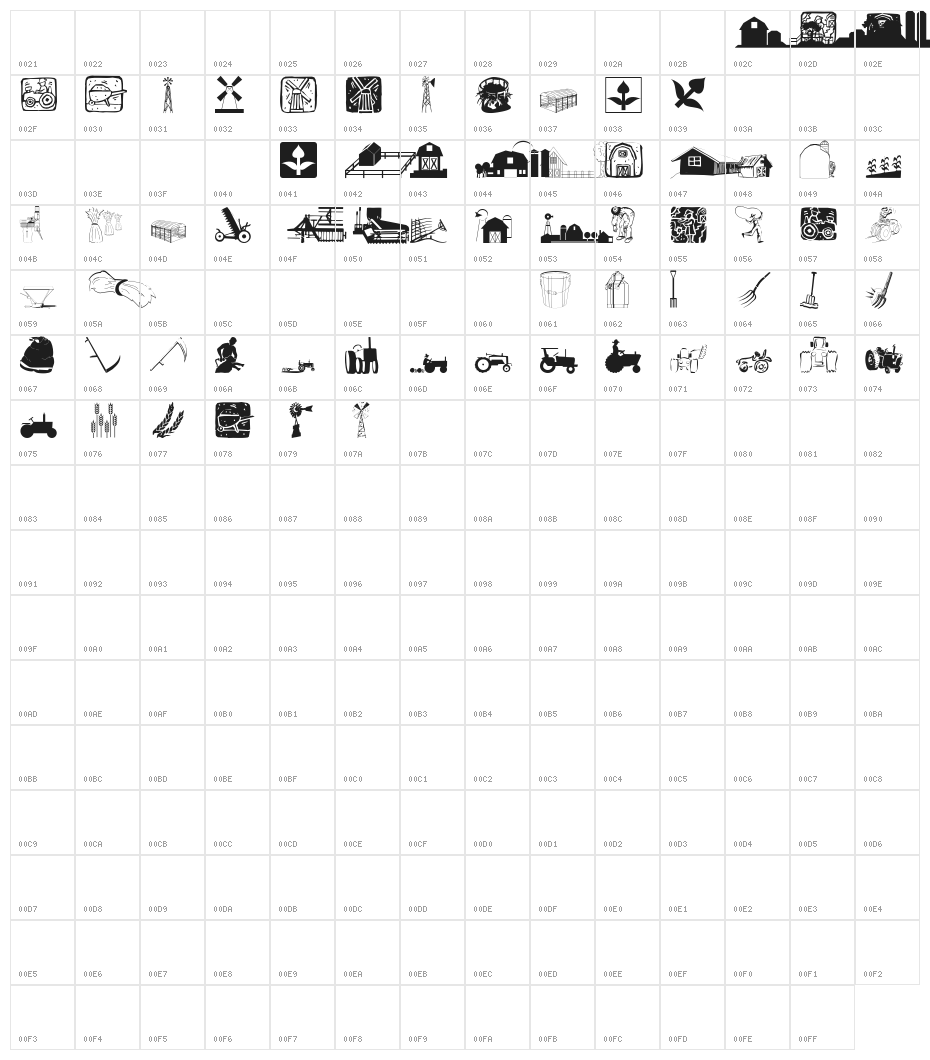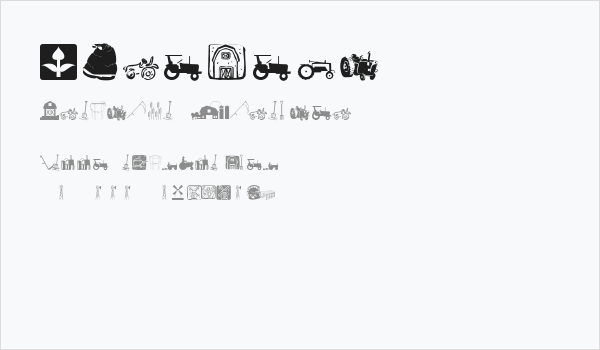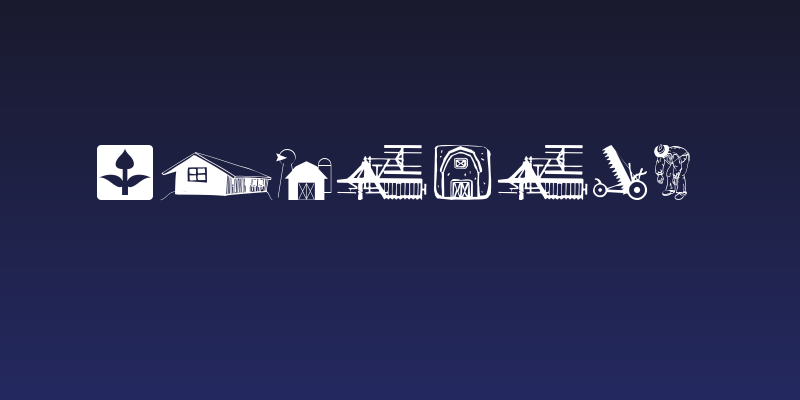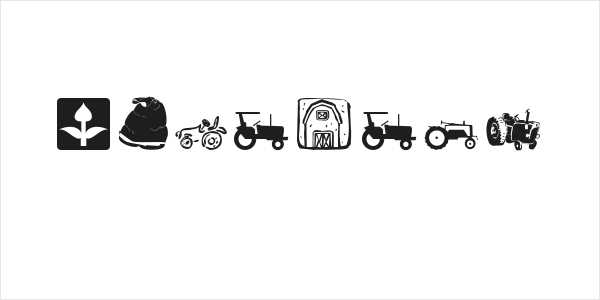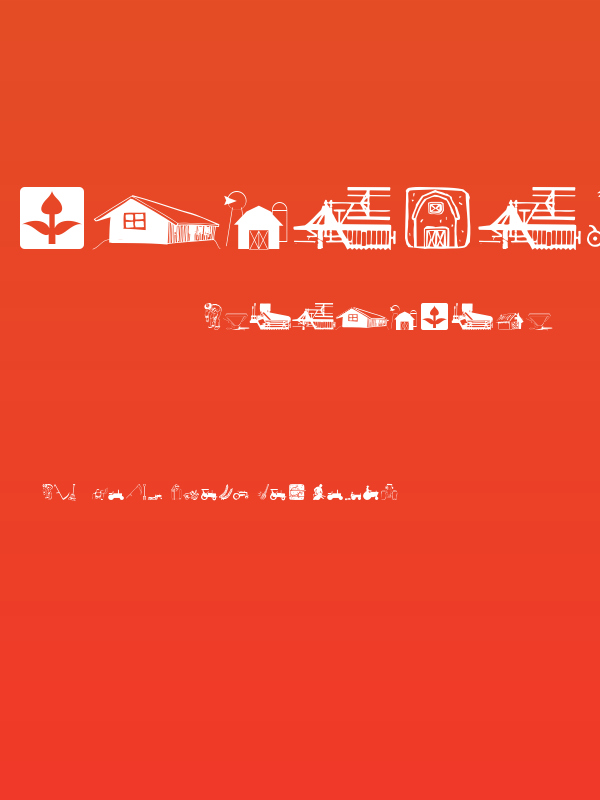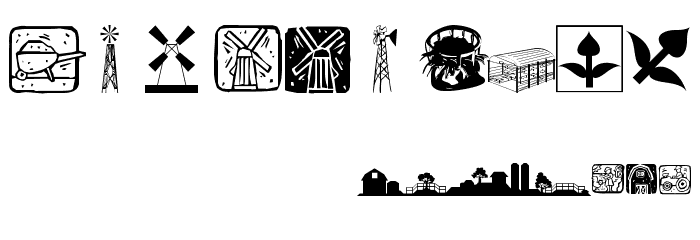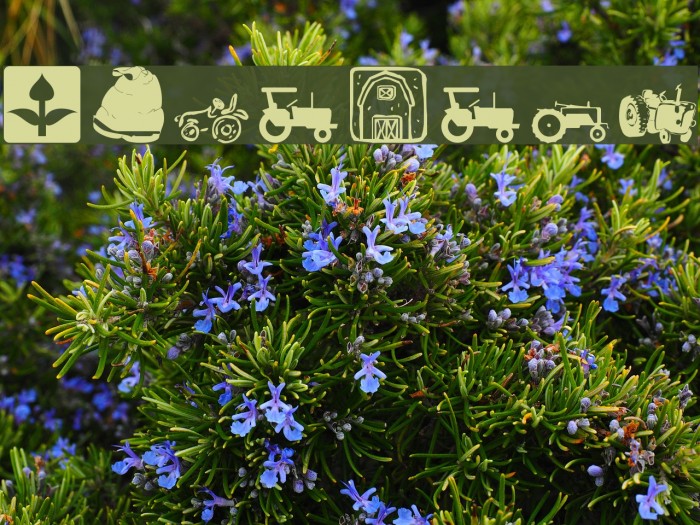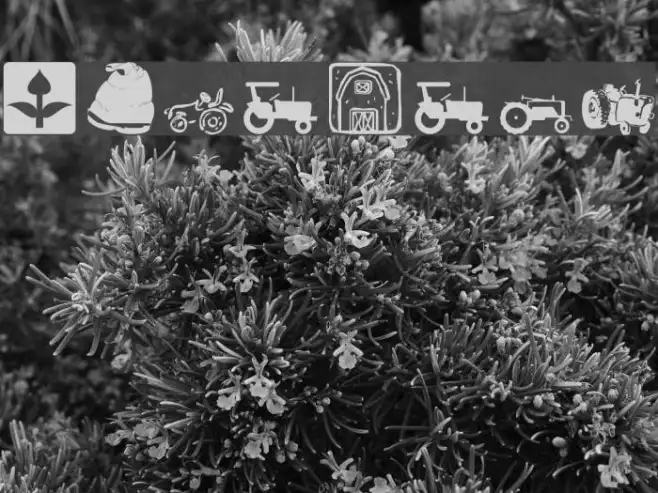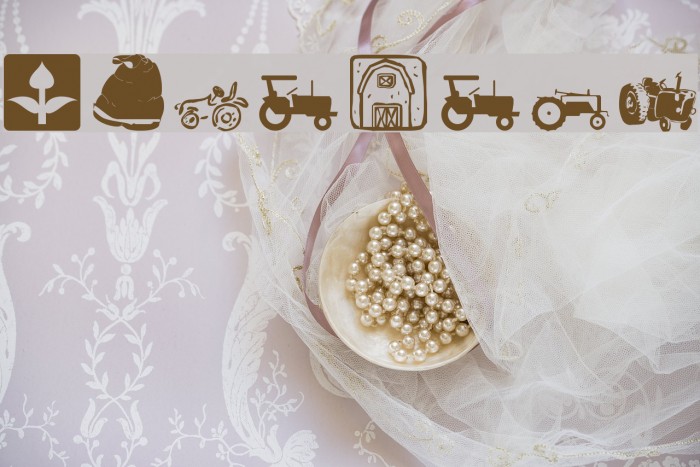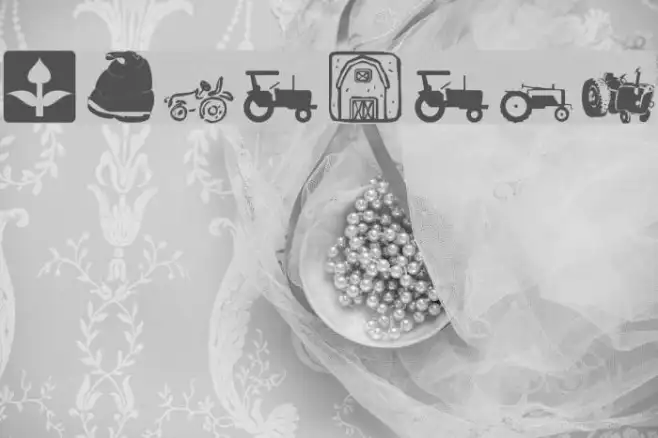
AgroFont Font
AgroFont Description
This is not a traditional font but rather a collection of agricultural-themed icons and symbols. Each character is represented by a distinct graphic related to farming, such as barns, tractors, windmills, and crops. The icons are detailed and illustrative, capturing various aspects of rural life and agriculture. They are designed in a bold, clear style, making them easily recognizable and suitable for visual storytelling. The collection includes a variety of farming equipment, landscapes, and produce, offering a comprehensive visual toolkit for agricultural themes.
| Use Case | Logos, Infographics, Educational materials |
| Proposed Projects | Ideal for agricultural branding, educational materials, farm-related infographics, and rural-themed design projects. |